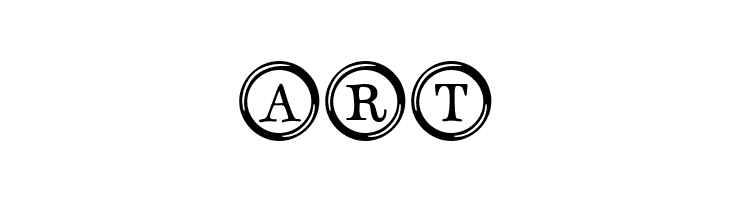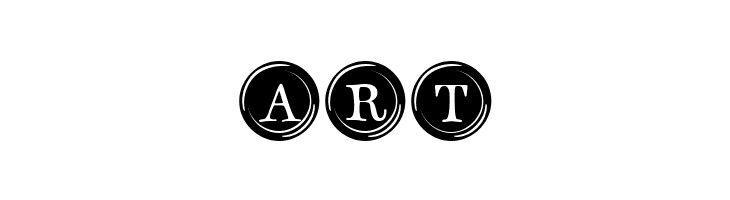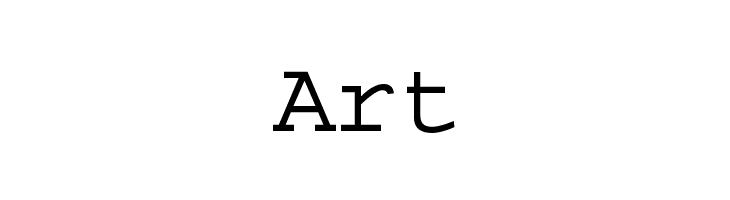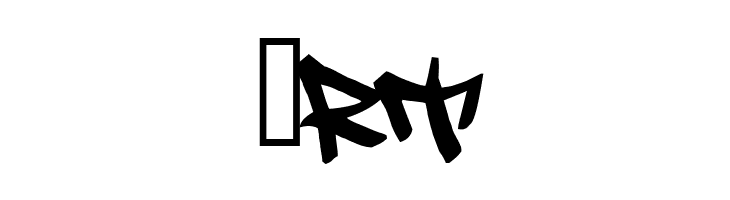
A vintage typewriter-inspired font with characters encased in circles, offering a bold and classic look.
A decorative serif font with characters enclosed in circular, typewriter-style keys.
A classic typewriter-style monospaced font with a clean, slightly rounded design.
A bold, graffiti-inspired font with sharp, angular lines and dynamic strokes.